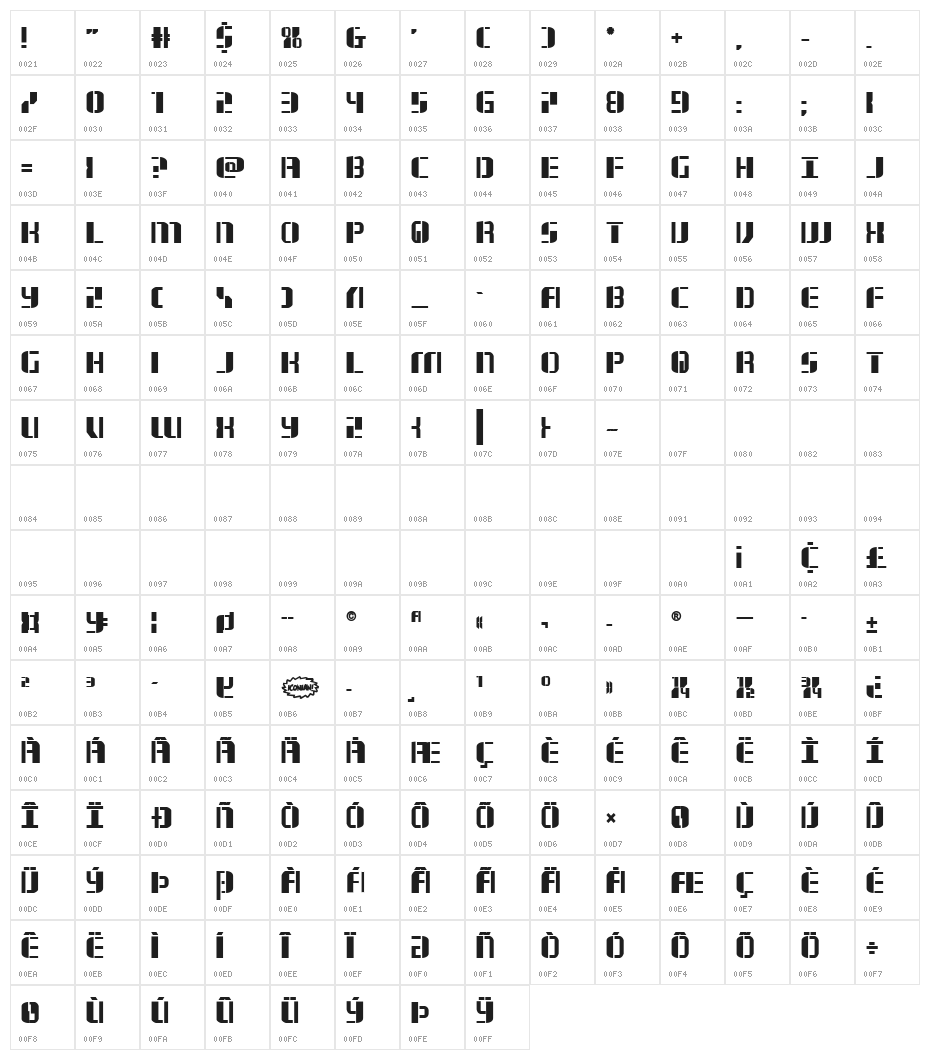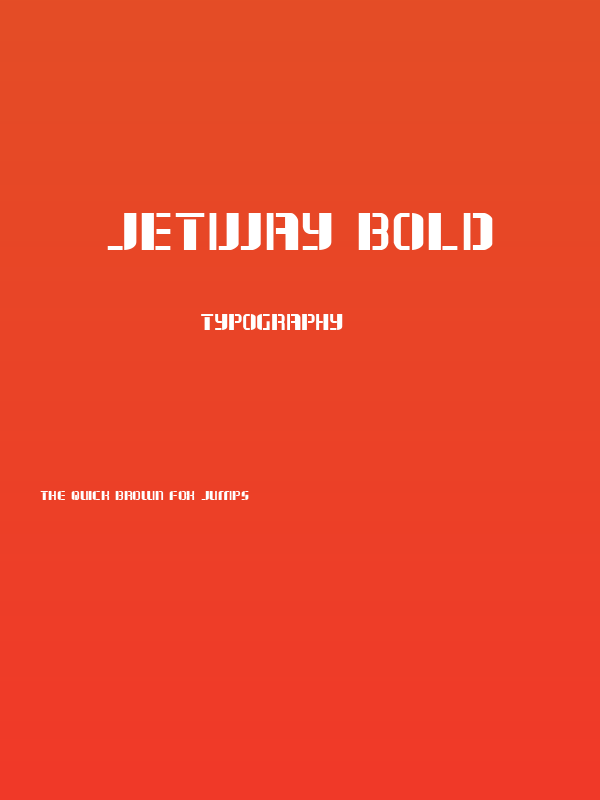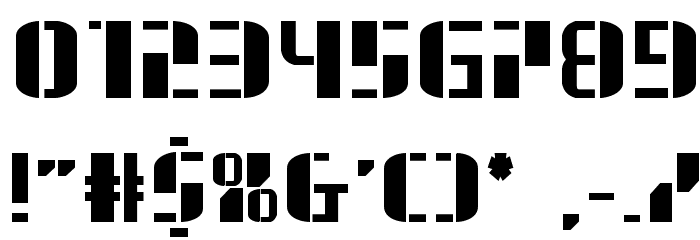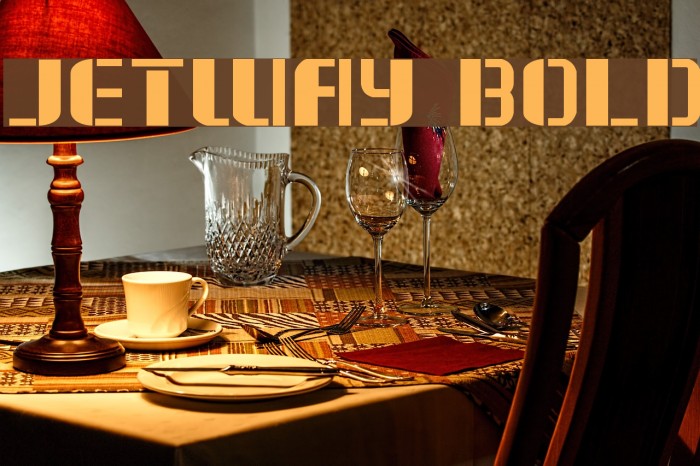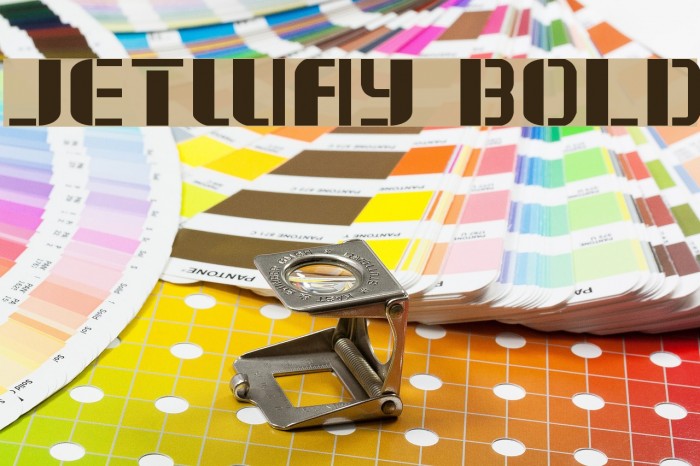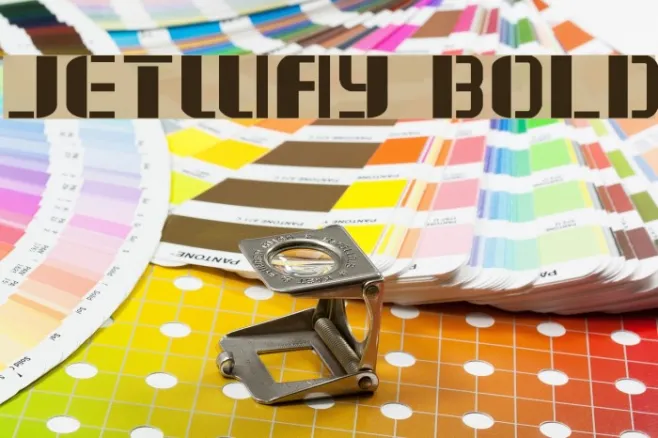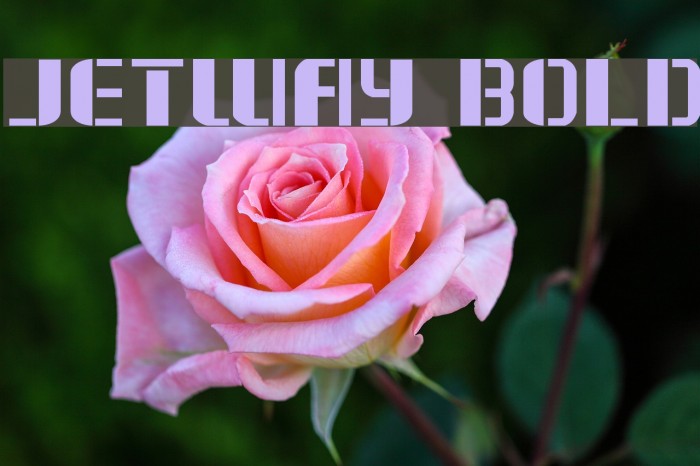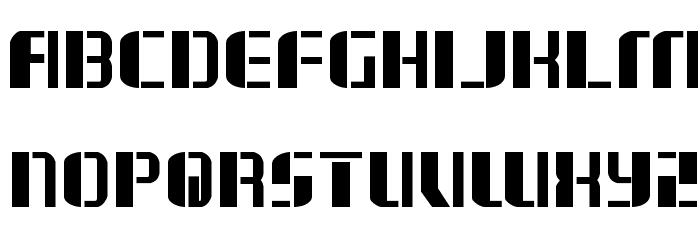
Jetway Bold Font
Jetway Bold Description
This font features a bold, geometric design with a distinct stencil-like appearance. The characters are constructed with solid, blocky shapes, creating a strong and impactful visual presence. The use of negative space within the letters adds a modern and industrial feel, making it ideal for projects that require a bold statement. The uppercase letters are uniform in height, while the lowercase letters maintain a consistent style, enhancing readability. Numbers and special characters follow the same design principles, ensuring a cohesive look across all text elements.
| Proposed Projects | Ideal for branding, posters, signage, and any project requiring a strong, modern look. |